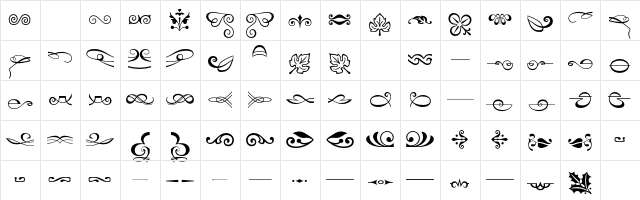
Complete Linotype Decoration Pi 1 glyph index. Displaying only characters natively supported by Linotype Decoration Pi 1 font.
Linotype Decoration Pi is a composed and adaptable typeface that performs quietly and consistently across a wide range of design contexts.